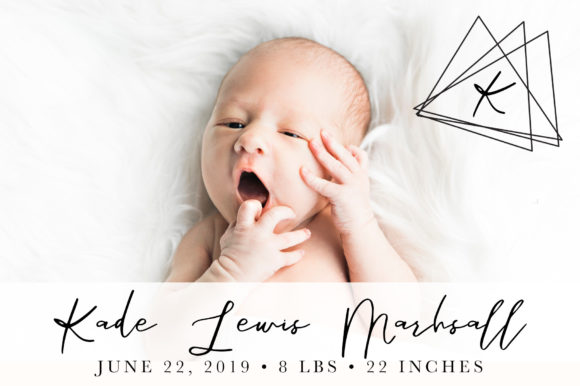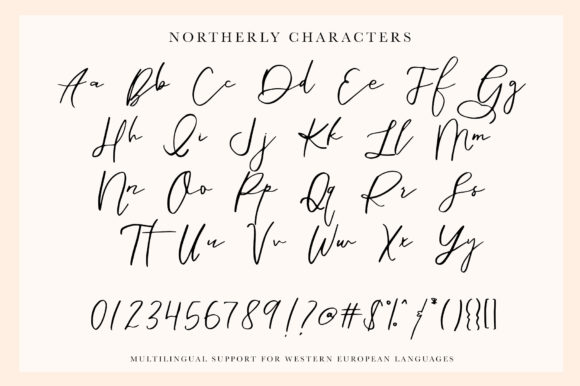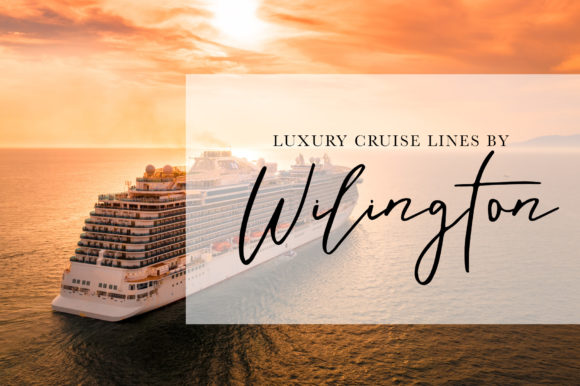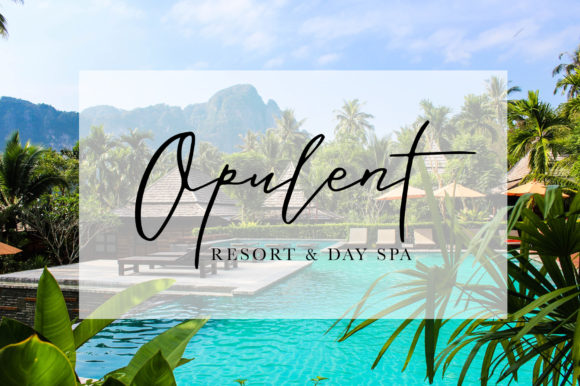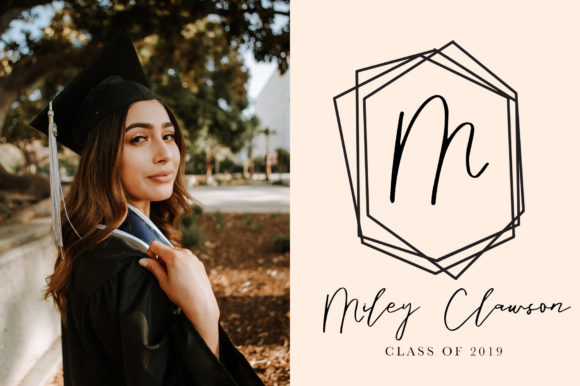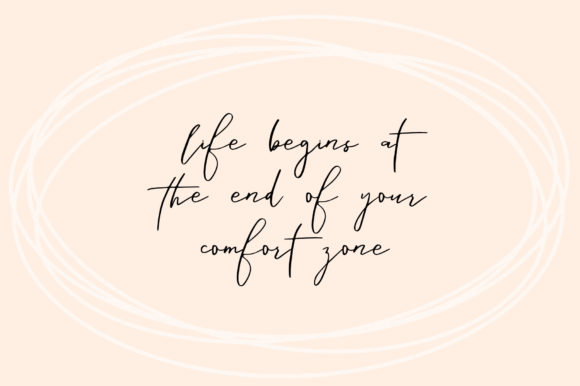
Introduction to Northerly Font
Imagine yourself in a quiet, serene studio, surrounded by sketches and design ideas, the only sound being the soft scratch of a pen on paper. You’re brainstorming a new project, one that requires elegance and sophistication. You start to envision the perfect font to bring your concept to life, something that exudes a touch of classic charm.
That’s where the Northerly Font comes in – a beautiful, high-quality script font that will add an authentic flavor to any design project. Its classic calligraphy-inspired design makes it a valuable resource for designers looking to create something truly unique and memorable.
Key Features of Northerly Font
- Comes with a transparent background for seamless integration into various designs
- Perfect for use in graphic design, digital art, and other creative endeavors
- Unique characteristics include its modern and clean design, making it ideal for a variety of applications
Honest Review: Northerly Font
- ✨ The Northerly Font has a clean and modern aesthetic that’s perfect for a variety of design applications, from logos to typography-heavy projects.
- ✨ The font is highly customizable, allowing you to adjust the weight, size, and color to suit your design needs.
- ✨ The transparent background option makes it easy to overlay text on images or use as a watermark.
- ⚠️ The font is only available in a limited number of weights, which might not be suitable for projects that require a wider range of font options.
- ⚠️ The font is not suitable for body text, as it’s primarily designed for headlines and titles.
Tips for Getting the Most Out of Northerly Font
Experiment with different font sizes, colors, and combinations to achieve the desired look. Northerly Font is also compatible with various design elements, allowing for endless creative possibilities.
Northerly Font is commonly used in creative projects such as infographics, posters, and brochures. Its unique design makes it an ideal choice for designers seeking a distinctive and high-quality design resource.